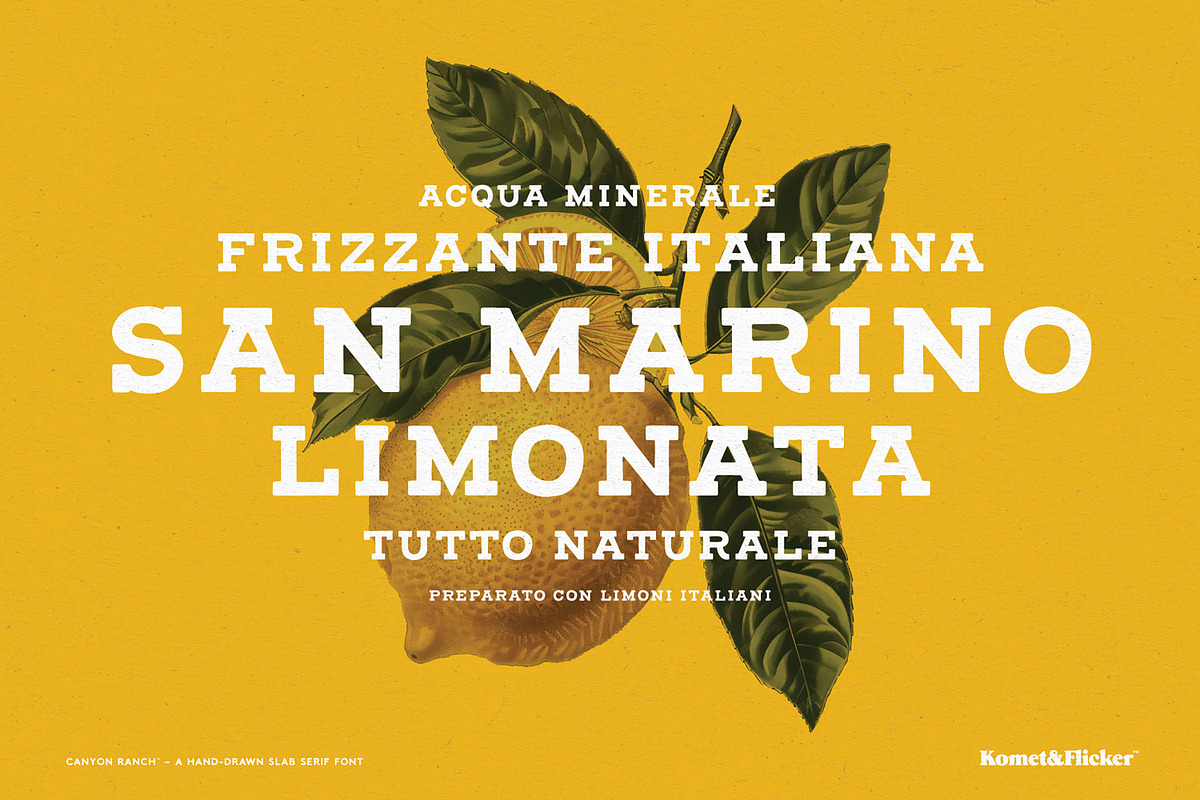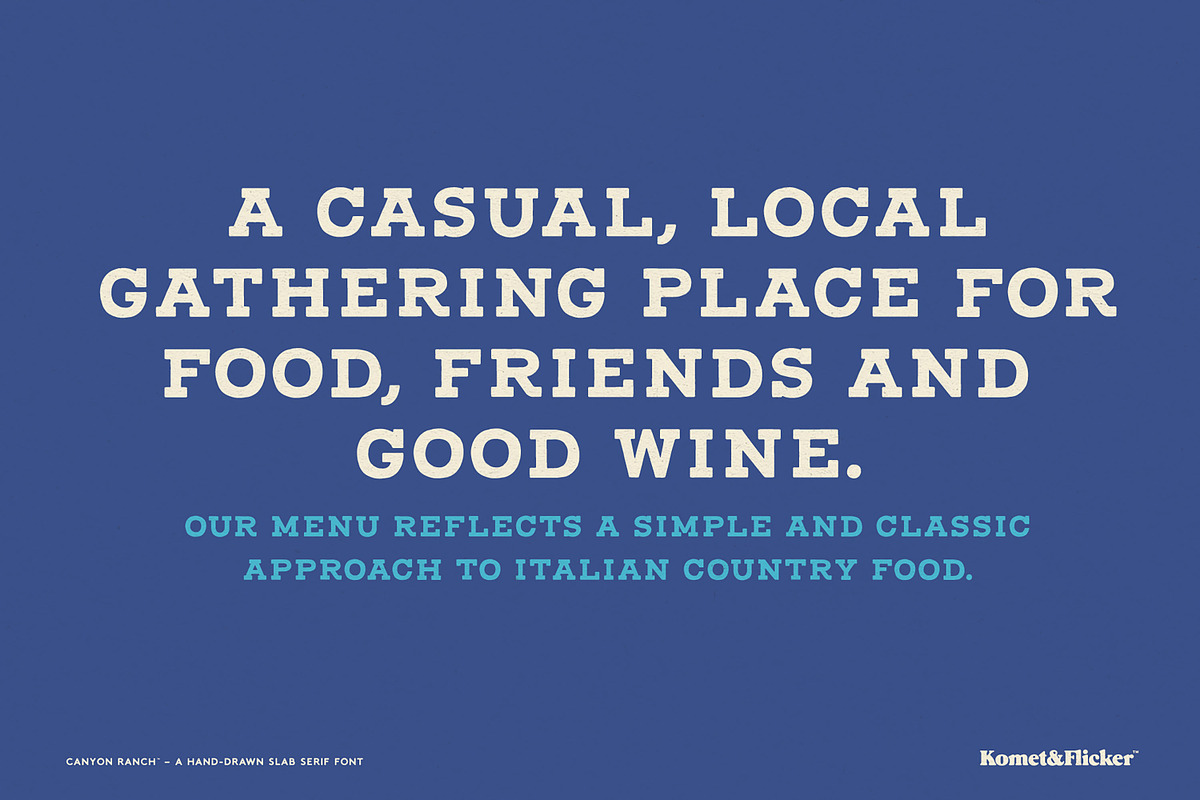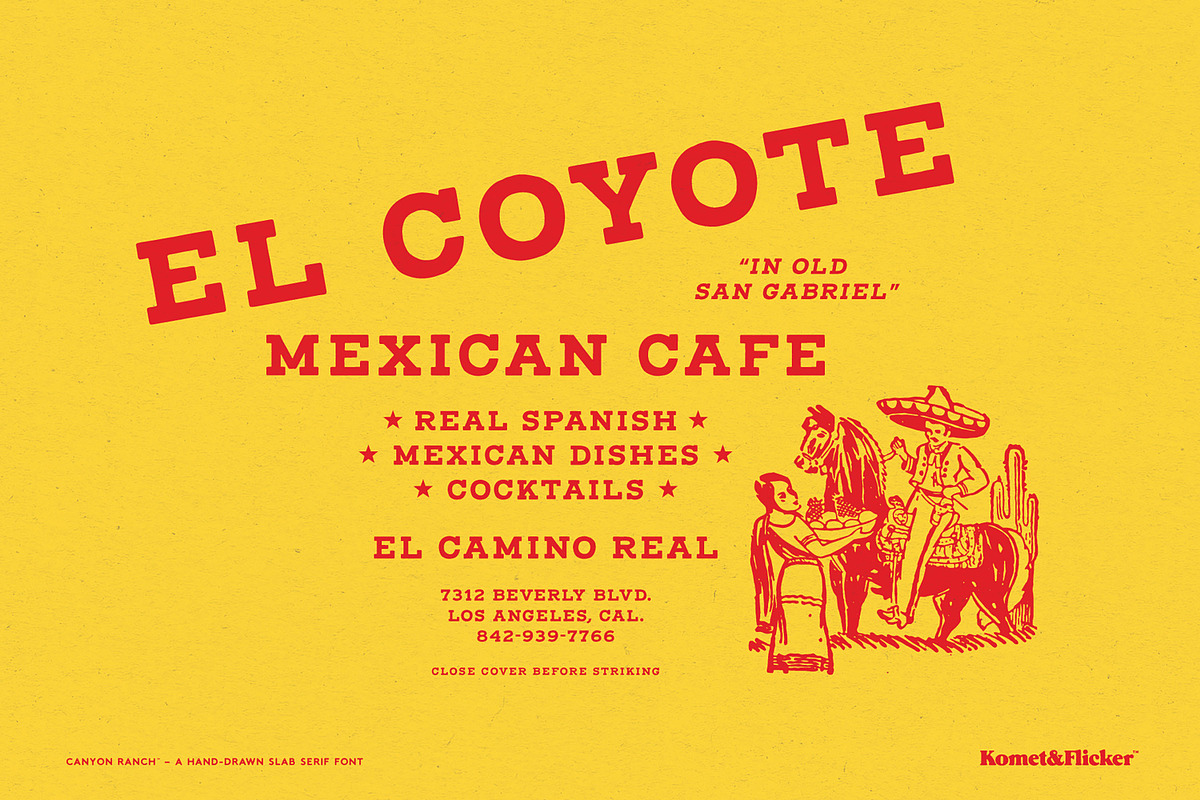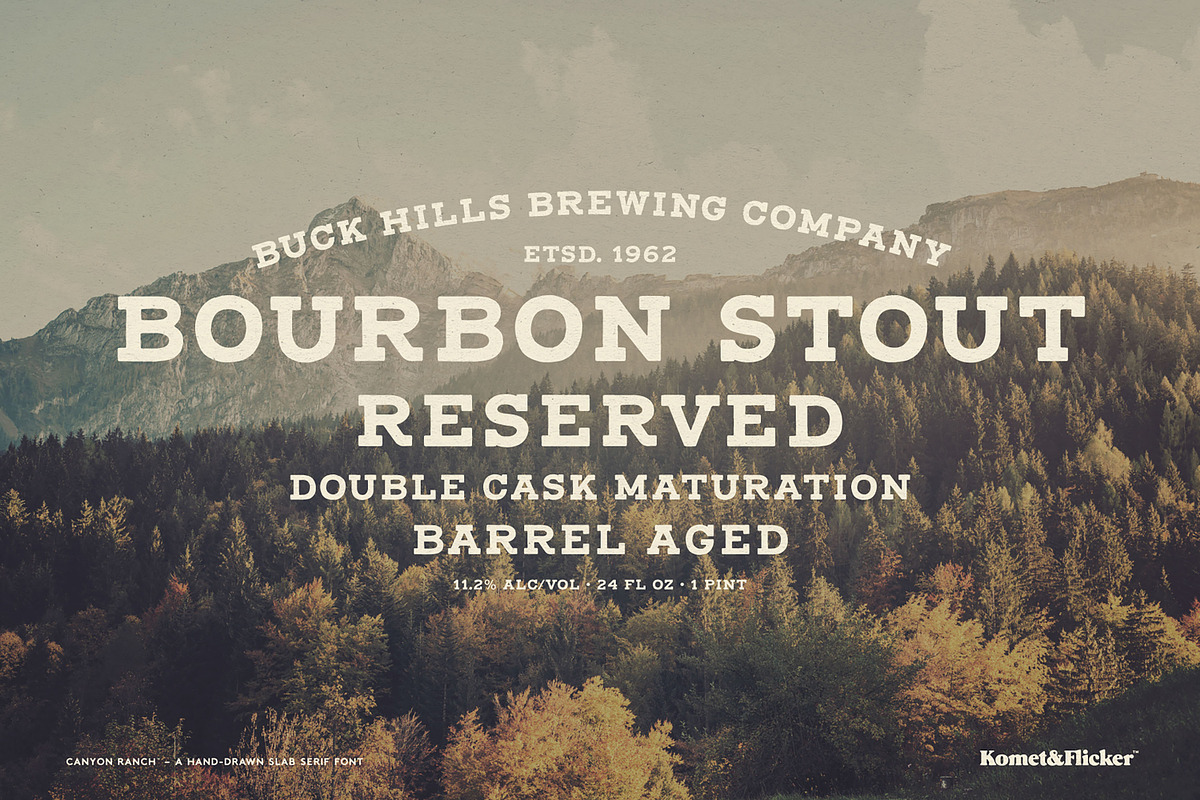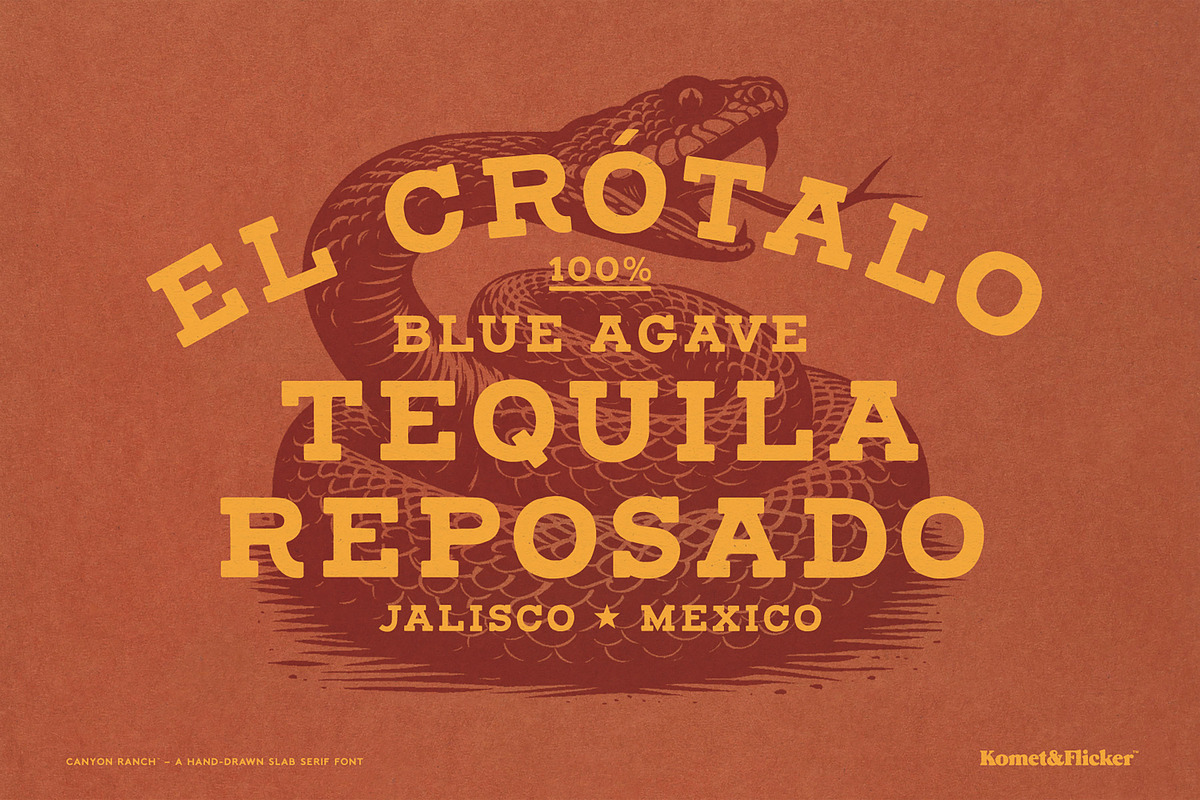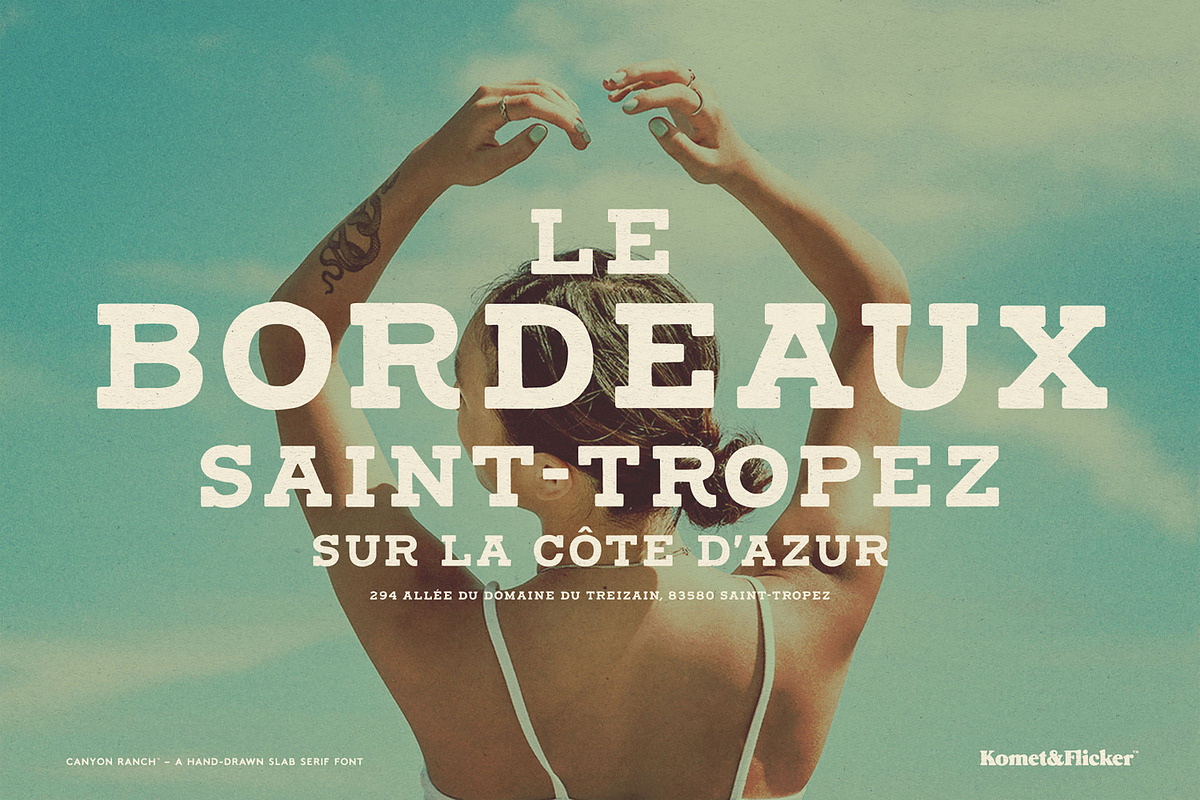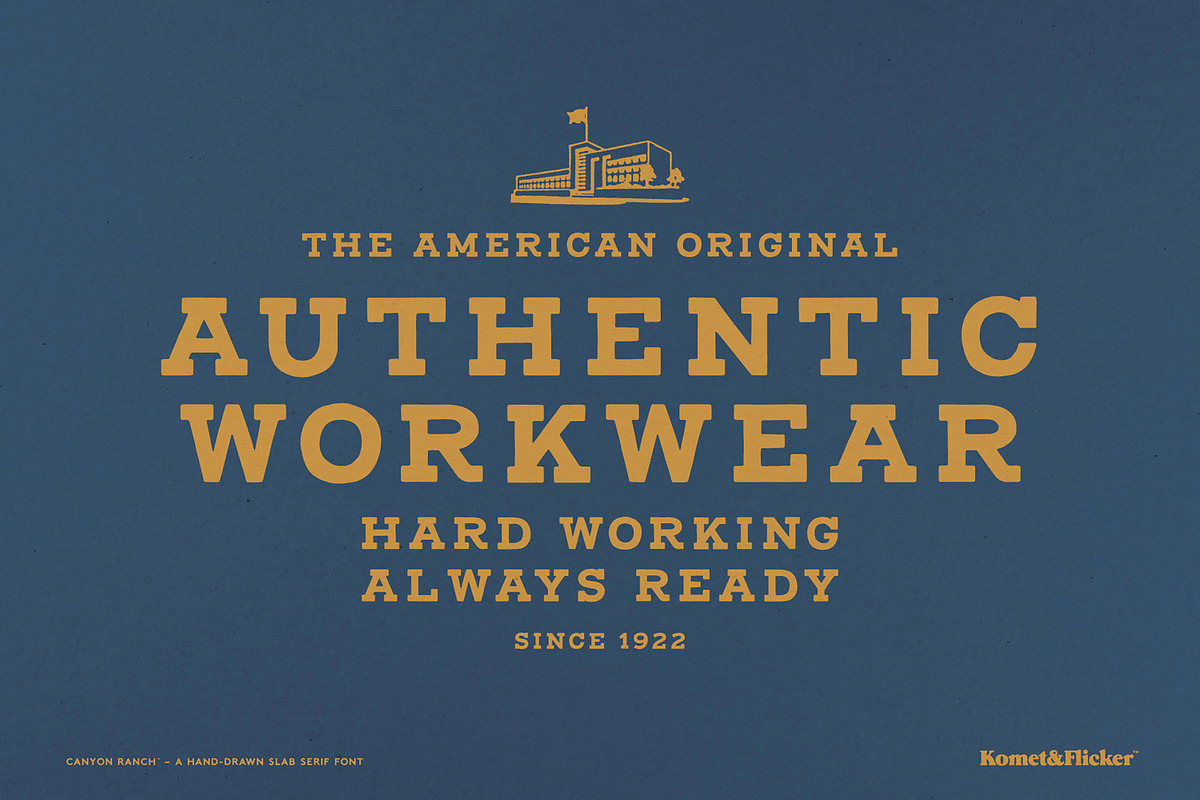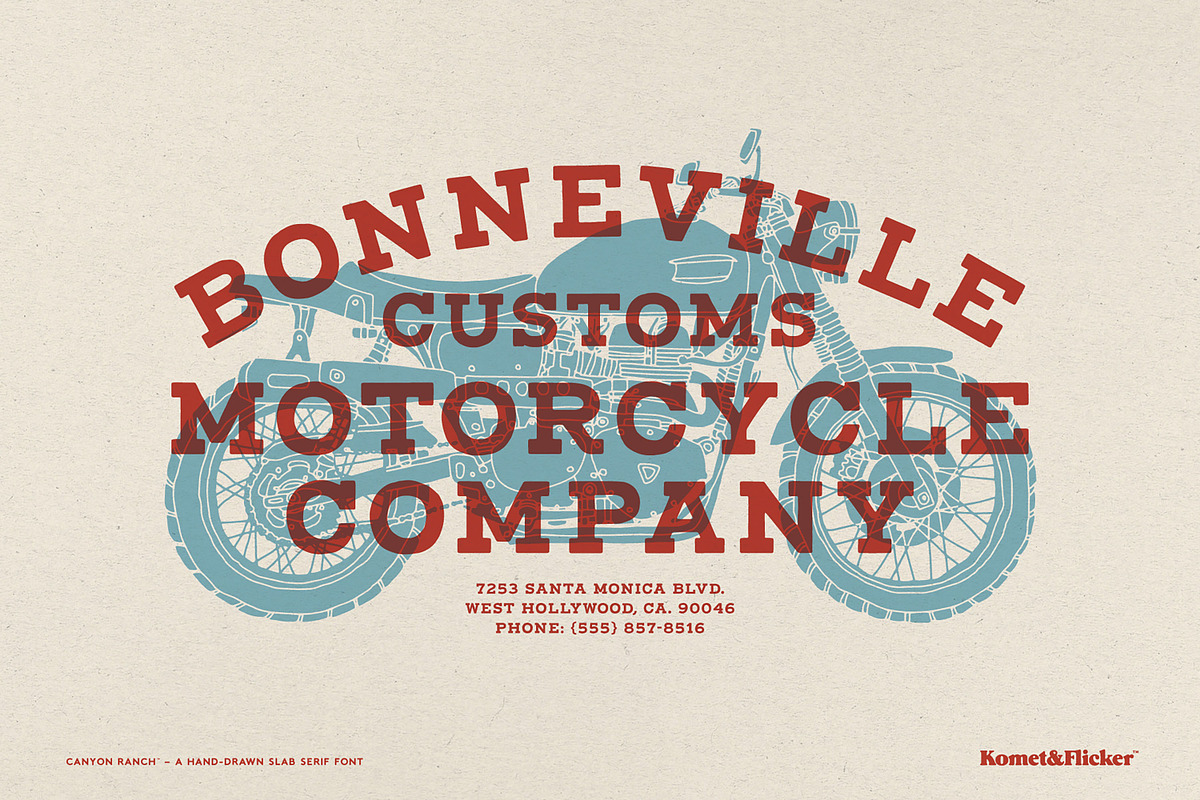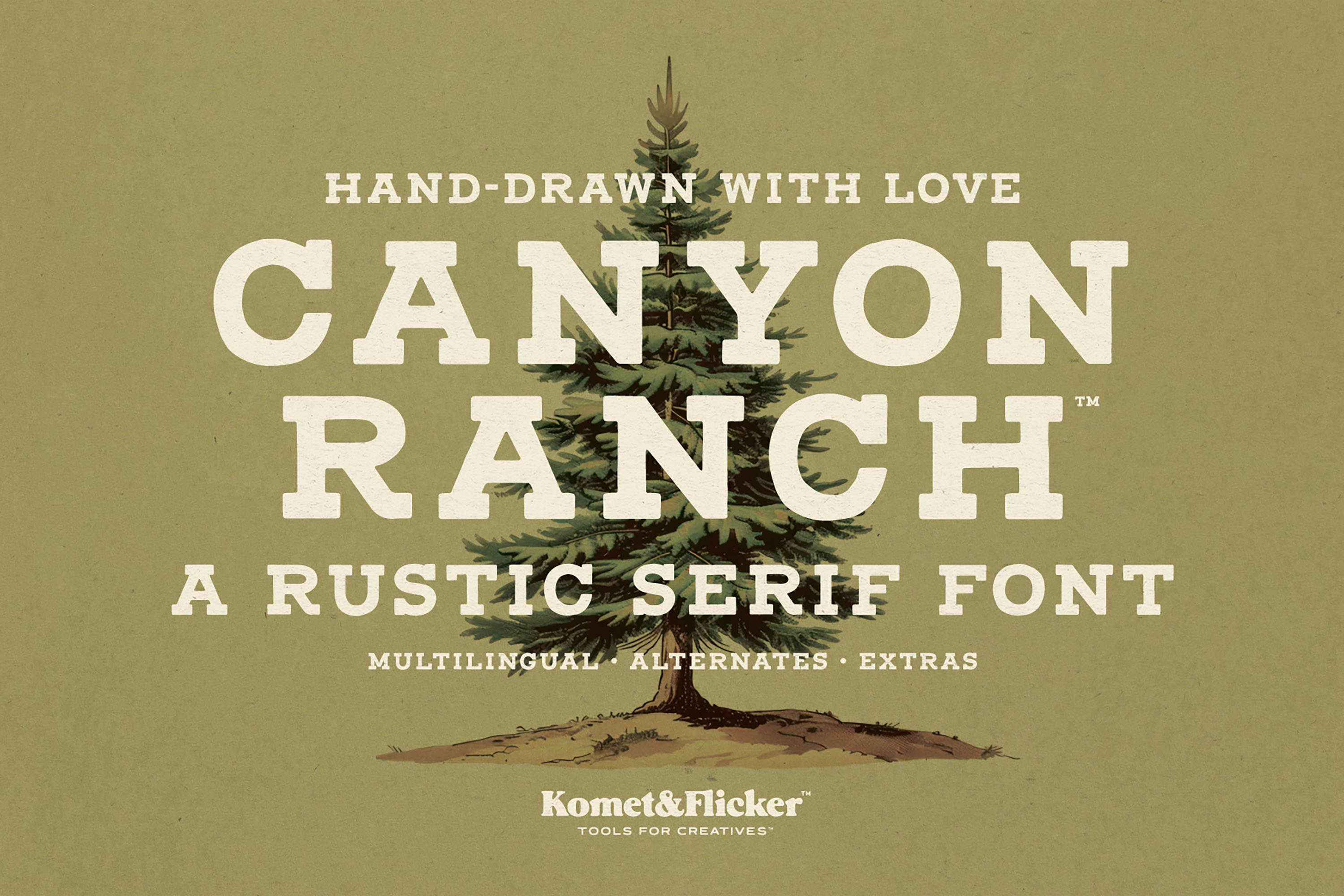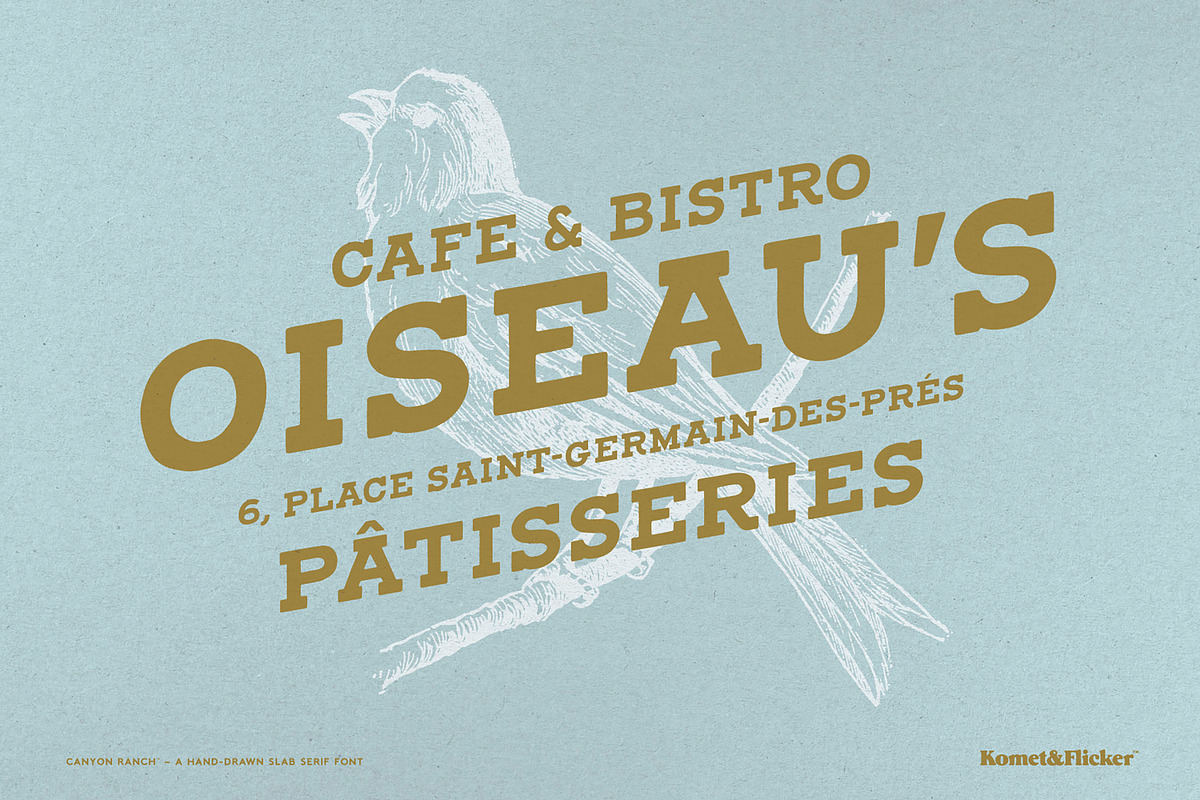
Canyon Ranch - A Hand-Drawn Font
Say hello to Canyon Ranch, a charming all caps slab serif font with a friendly, down-to-earth vibe. Crafted to be casual and approachable, this typeface brings a warm, human touch to your projects – perfect for anything from playful branding to relaxed layouts.
This font has been hand-drawn, giving the font an organic, slightly imperfect personality that makes it feel truly unique. Canyon Ranch also comes with a set of 20 custom connecting words (like AND, THE, WITH) designed to integrate with the rest of your text for added flair.
THIS FONT INCLUDES
- Full A-Z uppercase basic latin characters
- Select European specific characters
- Numbers, punctuation, and select symbols
- Two styles of pre-made common fractions
- Set of 20 custom connecting word glyphs